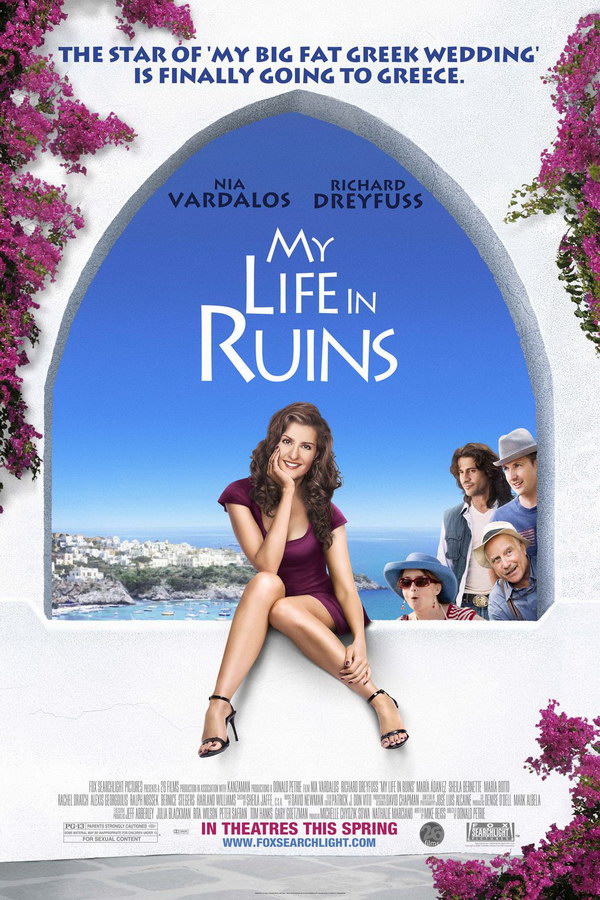
My Life in Ruins Font
Fonts in UseMy Life in Ruins is a romantic comedy film directed by Donald Petrie and released in 2009. The movie follows a Greek-American tour guide named Georgia who leads a group of tourists on a bus tour of Greece while trying to rediscover her own love for life and romance.
The movie title on the poster likely features Lithos Regular, a font created by Carol Twombly inspired by the inscriptions found in ancient Greece. This commercial font can be explored in further detail here.